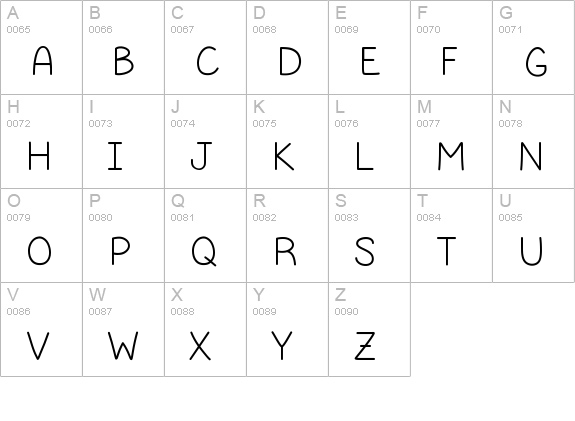
SimpleKindOfGirl Font Details
SimpleKindOfGirl is a font that embodies the essence of simplicity and elegance. With its clean lines and minimalistic design, this font brings a touch of sophistication to any project. Whether you are designing a logo, creating invitations, or crafting a beautiful website, SimpleKindOfGirl will elevate your work to new heights. This font is the perfect choice for those who appreciate the beauty of simplicity. Its graceful curves and smooth strokes create a sense of harmony and balance, making it visually pleasing to the eye. The versatility of SimpleKindOfGirl allows it to be used in a variety of contexts, from formal to casual, making it suitable for any project. One of the most appealing aspects of SimpleKindOfGirl is that it is freely available to download at FontsMarket.com. This means that you can access this stunning font without any cost or hassle. FontsMarket.com is a trusted source for high-quality fonts, and SimpleKindOfGirl is no exception. By offering this font for free, FontsMarket.com enables designers and creators to bring their visions to life without any financial constraints. In addition to its aesthetic appeal and affordability, SimpleKindOfGirl is also easy to use. Its clear and legible letterforms ensure that your message is conveyed effectively, while its extensive character set allows for creative customization. Whether you are a seasoned designer or a beginner, this font will make your work stand out and make a lasting impression. So, if you're looking for a font that combines simplicity, elegance, and affordability, look no further than SimpleKindOfGirl. Download it for free at FontsMarket.com and let your creativity soar.